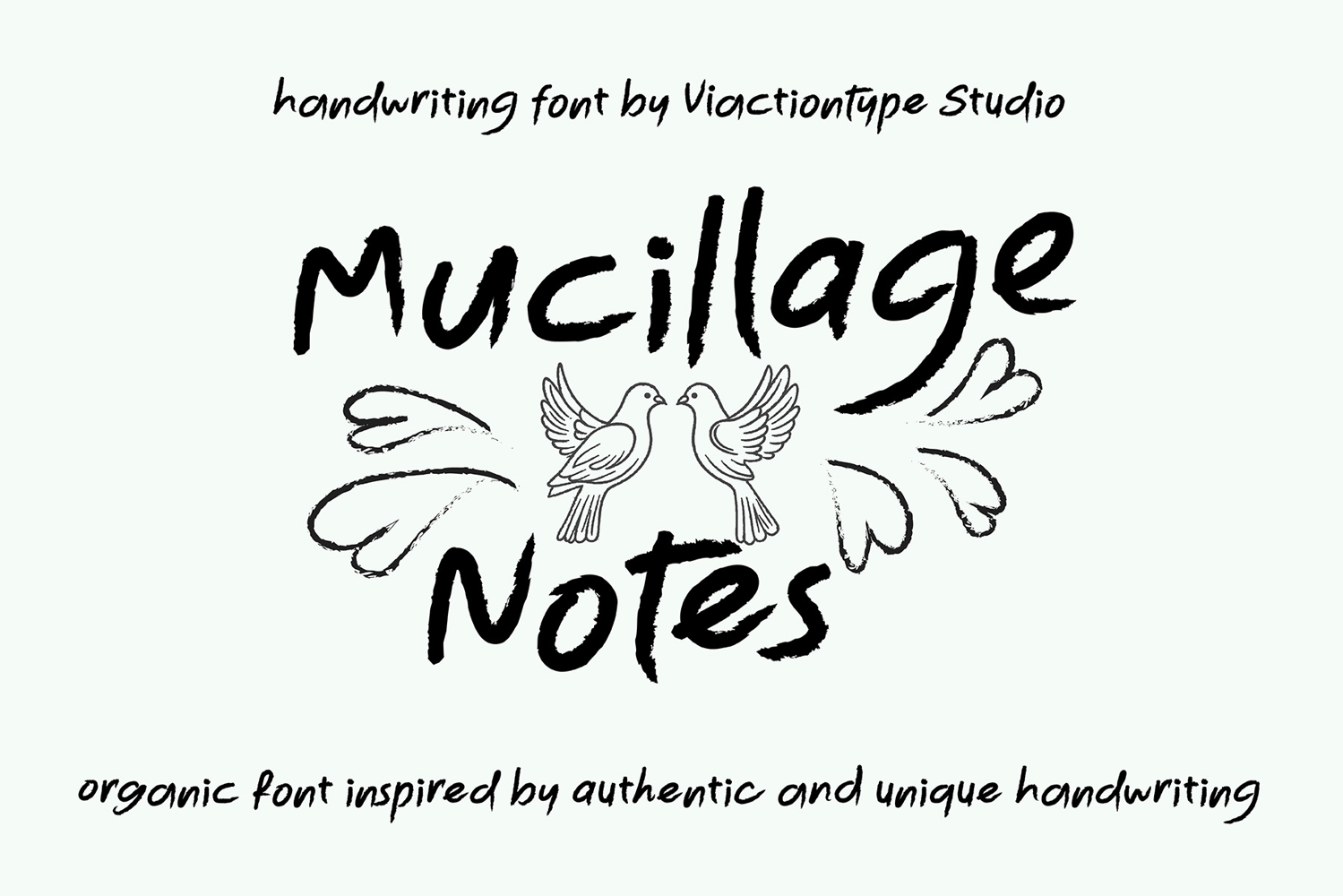
Mucillage Notes Handwriting Brush Font
Mucillage Notes – Handwriting Brush Font is a graceful and expressive display brush typeface crafted to capture the beauty of dynamic, feminine handwritten strokes. Inspired by real ink brush handwriting, this font flows with smooth curves, natural rhythm, and soft movement—bringing a sense of elegance, warmth, and luxury to every composition.
Designed with lively brush pressure and authentic stroke texture, Mucillage Notes delivers a realistic handcrafted feel. Each letterform shows visible brush detail and organic variation, making your typography, artistic, and premium rather than mechanical. The style feels free and fluid while maintaining refined structure—perfect for designs that aim to be both expressive and sophisticated.
This font includes two styles: Regular and Oblique, allowing you to create motion and emphasis in your layouts. It also comes with alternate characters and multilingual support, giving you greater creative flexibility for branding and international projects.
Mucillage Notes – Handwriting Brush Font works beautifully for luxury branding, beauty products, fashion labels, wedding stationery, cosmetic packaging, editorial headlines, signature logos, and elegant social media visuals.
Bring soft power and flowing elegance into your typography with Mucillage Notes.
Key Features
• Feminine and dynamic handwriting brush style
• Inspired by real ink brush lettering
• Natural curves with authentic brush texture
• Elegant, soft, and expressive character
• 2 styles: Regular & Oblique
• Alternate characters included
• Ideal for luxury, beauty, fashion, and elegant branding